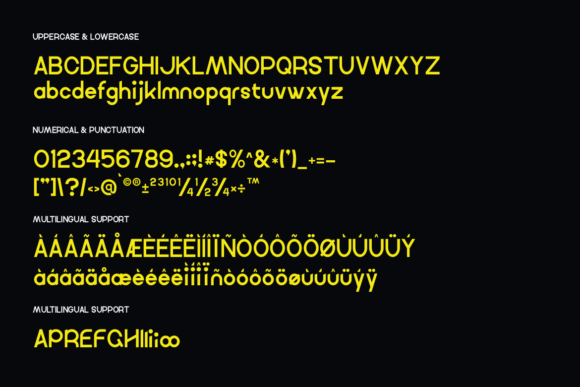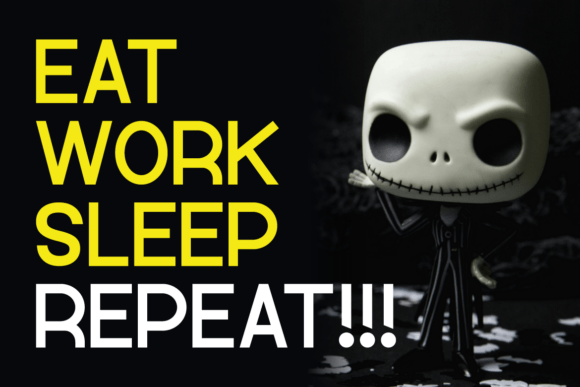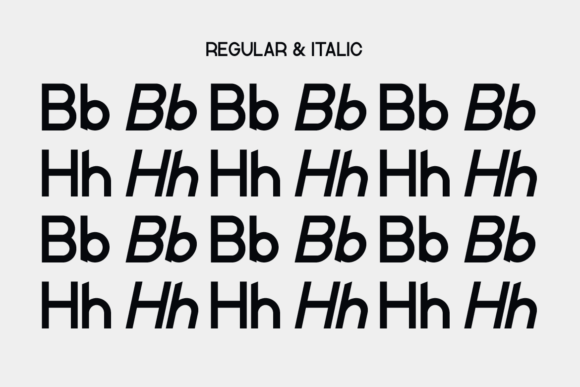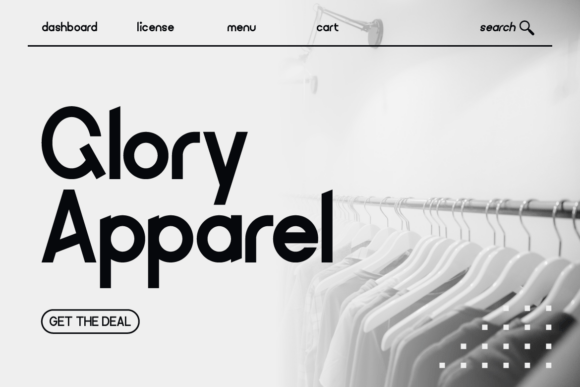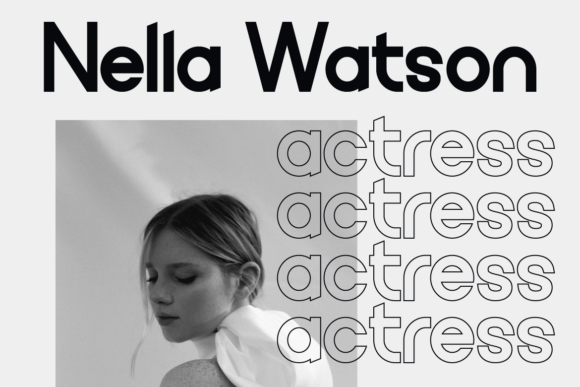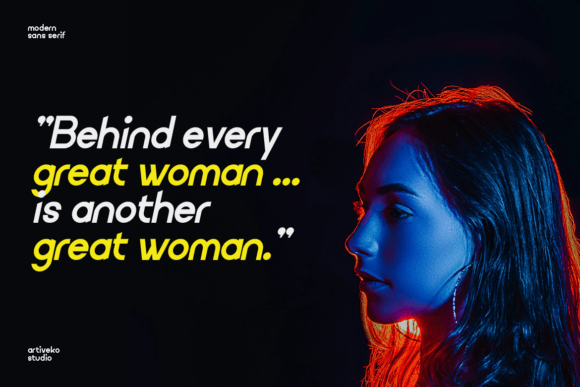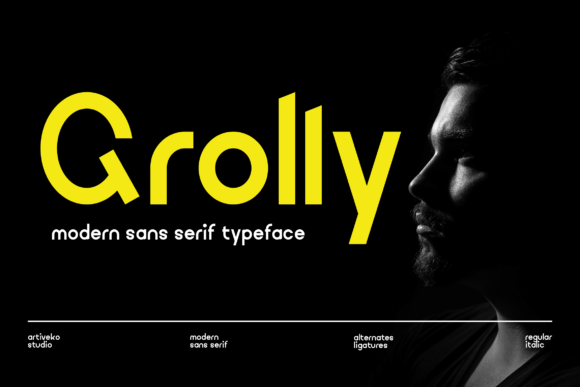
Grolly Font: Elevate Your Design with a Modern Sans-Serif Marvel
In the realm of typography, fonts play a pivotal role in shaping the visual identity of a brand, product, or creative project. Among the myriad of fonts available, Grolly stands out as a clean and contemporary sans-serif font, meticulously designed for clarity and impact. With its geometric shapes, smooth curves, and perfectly balanced proportions, Grolly offers a modern aesthetic that suits a wide array of creative endeavors, from branding and packaging to editorial design and digital interfaces.
The Essence of Grolly Font
Grolly is more than just a font; it’s a design statement. Its clean lines and contemporary look make it an ideal choice for designers and crafters seeking to infuse their projects with a modern vibe. The font’s geometric shapes provide a structured and organized feel, while its smooth curves add a touch of elegance and approachability. This blend of structure and elegance enables Grolly to convey a wide range of messages, from professionalism and innovation to friendliness and approachability.
Key Features of Grolly Font
• Clean and Contemporary Design: Grolly’s sans-serif design ensures a clean and uncluttered appearance, making it perfect for digital media and print.
• Geometric Shapes and Smooth Curves: The font combines geometric precision with smooth curves, creating a balanced and visually appealing look.
• Perfectly Balanced Proportions: Grolly’s characters are designed with balanced proportions, ensuring excellent readability across various sizes and mediums.
• Versatility: Suitable for a variety of projects, including branding, packaging, editorial design, and digital interfaces.
Applications of Grolly Font
Grolly’s versatility is one of its most compelling attributes. Here are some of the areas where Grolly can make a significant impact:
Branding and Packaging
In the world of branding, first impressions are crucial. Grolly’s modern and clean design makes it an excellent choice for logos, product labels, and packaging. Its ability to convey professionalism and innovation can help brands stand out in a crowded market.
Editorial Design
For editorial projects such as magazines, newspapers, and blogs, Grolly offers a readable and engaging reading experience. Its balanced proportions and clean lines ensure that content is presented in a clear and accessible manner.
Digital Interfaces
In digital design, user experience is paramount. Grolly’s clarity and legibility make it suitable for user interfaces, websites, and mobile applications. Its modern aesthetic can enhance the visual appeal of digital products, making them more engaging and user-friendly.
Why Choose Grolly Font?
Choosing Grolly for your design projects comes with several advantages:
• Enhanced Readability: Grolly’s design prioritizes readability, ensuring that your message is communicated effectively.
• Modern Aesthetic: The font’s contemporary look can elevate the visual appeal of your projects.
• Versatility: Grolly can be used across various mediums and projects, making it a valuable addition to your design toolkit.
• Professionalism: Its clean and balanced design can convey a sense of professionalism and sophistication.
Grolly font represents a fusion of modern design principles and timeless typographic values. Its clean and contemporary sans-serif design, combined with geometric shapes and smooth curves, makes it an excellent choice for designers and crafters looking to make a statement. Whether you’re working on branding, editorial design, or digital interfaces, Grolly offers the clarity, impact, and versatility needed to elevate your projects. Embrace Grolly in your design endeavors and experience the difference it can make.